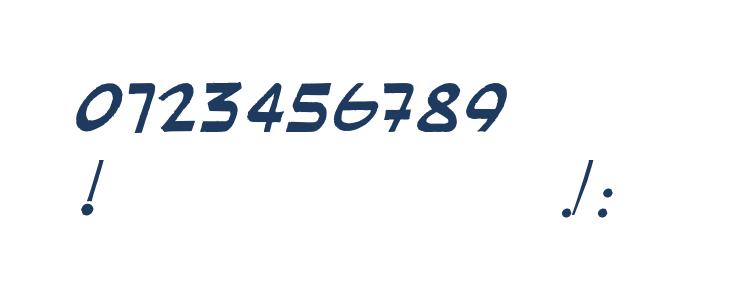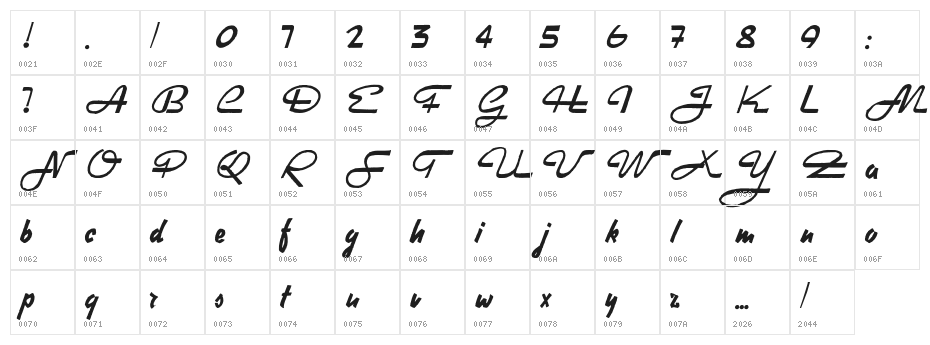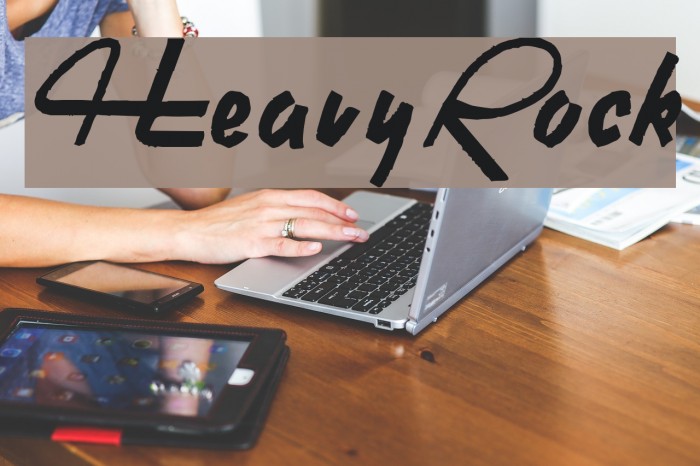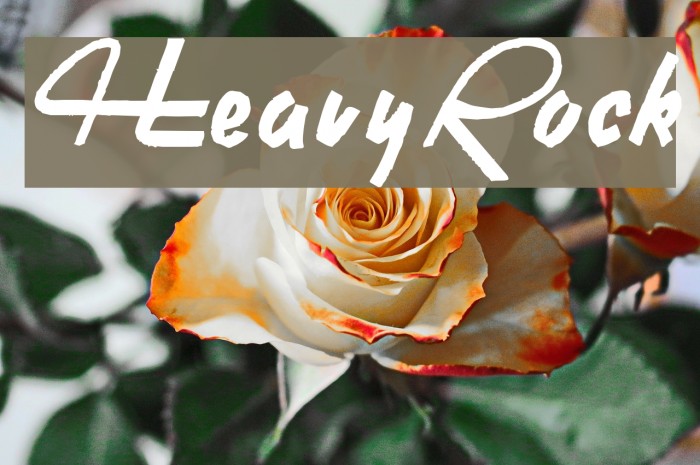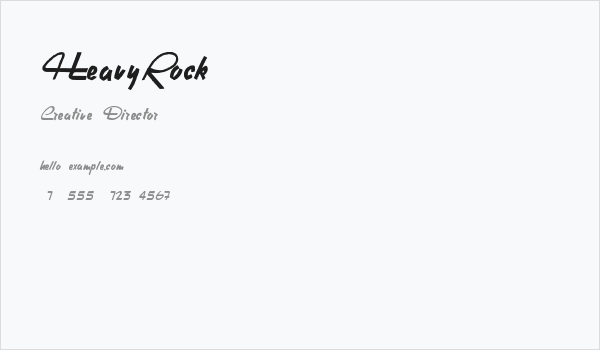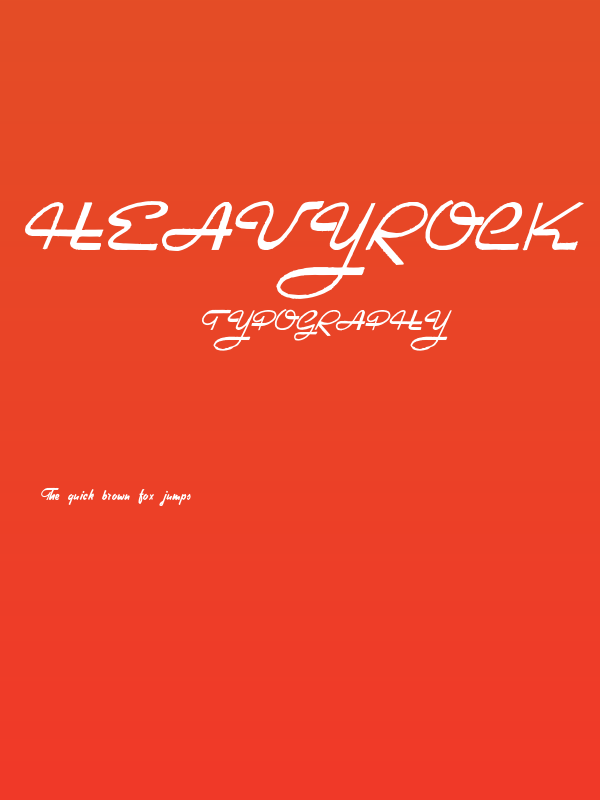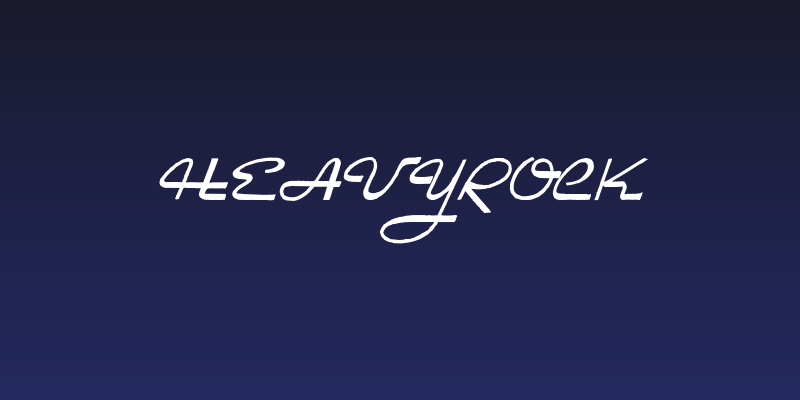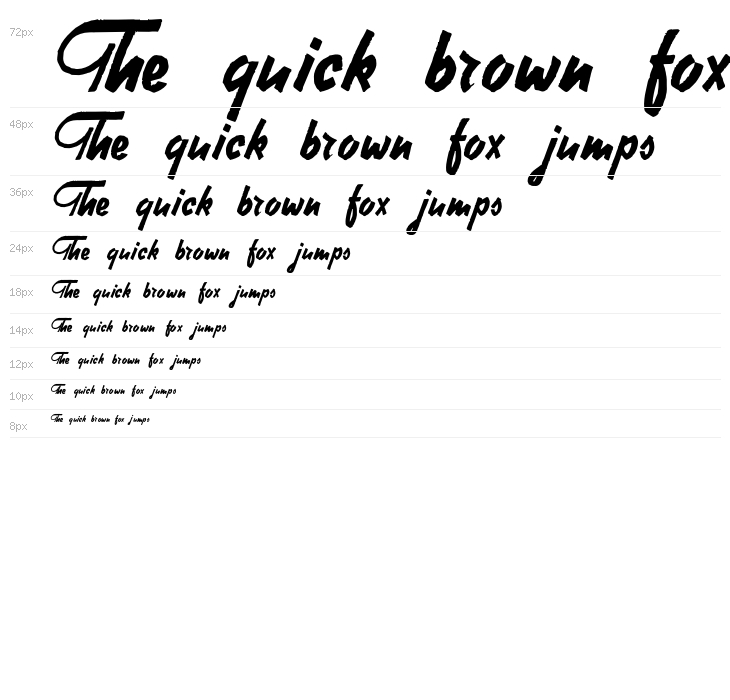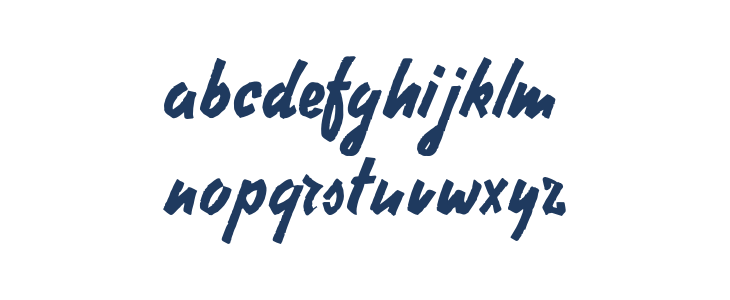
HeavyRock Font
HeavyRock Description
This font features a dynamic and bold script style with a strong presence. The uppercase letters are elegantly connected, showcasing a fluid motion that mimics handwriting with a modern twist. The lowercase letters maintain a consistent thickness, providing a robust and impactful appearance. The numerals are bold and slightly slanted, complementing the overall script style. Special characters are designed to match the energetic flow of the letters, adding a cohesive look to the entire set. This font is perfect for projects that require a touch of elegance combined with a bold statement.